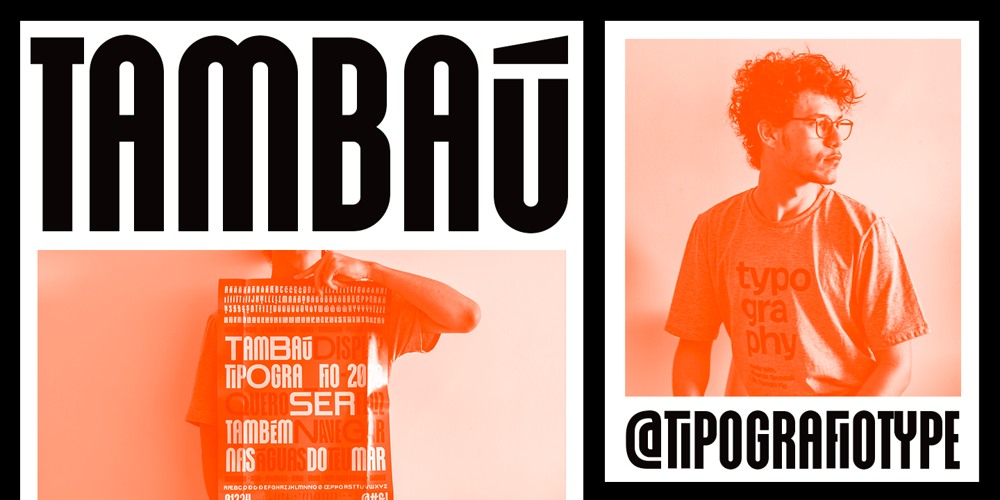
Tambau Font Family was designed by Fio and published by Tipogra Fio. Tambau contains 1 styles and family package options. Tambau is a display typeface crafted by Matheus “Fio” Gonçalves, a Brazilian design student, still in college, inspired by Brazilian concert urban posters and wood type that I saw at the Oficina Tipográfica São Paulo. The font was first made for a magazine project in design school, making it beautiful on giant pages headlines, billboards, signs, etc.There’s no lowercase, the character set is dramatic and objective. The uppercase is actually expanded letterforms causing some eyes and breathing paths to the very condensed and very modular glyphs, which creates a quite interesting striped texture between form, counterform and spacing.The lots of ligatures come to give it more closure between the letters, when they try to form blank spaces. So do the diacritics, fitting in the space given to them by the dynamic letterforms, making dense rectangular blocks.You may use Tambau as big as you can or do a high tracking to it and still it will be pretty. The titles can be dynamic, just condensed or just large. It’s on your own. Don’t be afraid to play with Tambau, it’s an alive typography.Curiosity: For the magazine in design school, the pilot project of Tambau was cut in a MDF board, to print it with texture and paint. Later was added more characters, languages and special glyphs to it.Set: Tambau is a singular font typeface, with extended and condensed characters, numbers, ligatures, punctuation and symbols for Basic, Western, Central and South Eastern Latin languages.